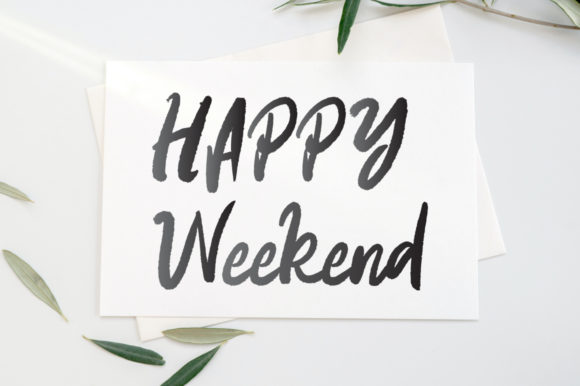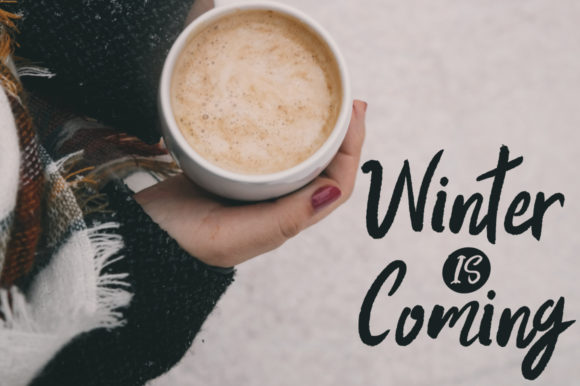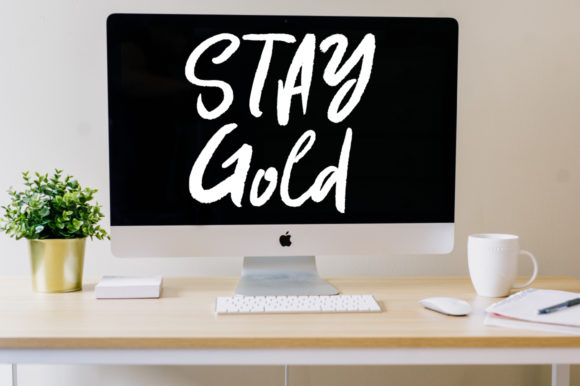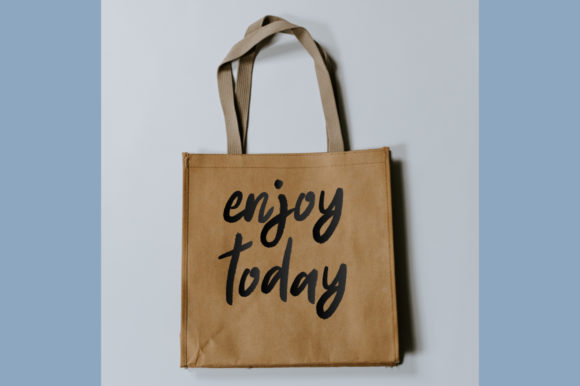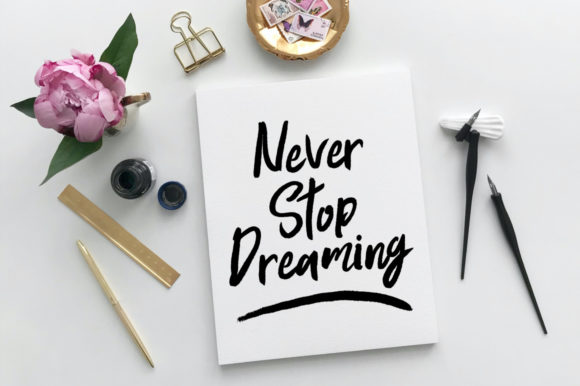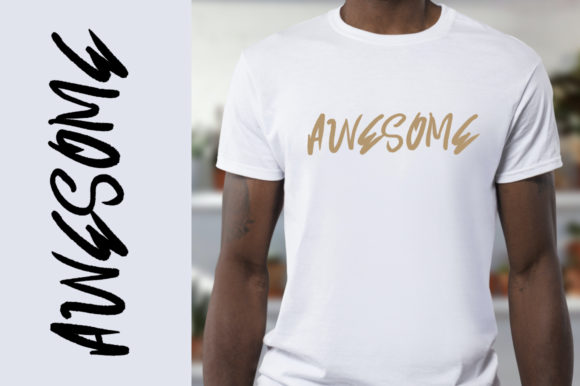
Introducing Big Boss Font: The Ultimate Display Font for Bold Designs
Are you a designer or crafter looking for a font that can make your designs stand out? Look no further than Big Boss Font, a bold and brushed display font that’s perfect for a wide range of applications. From branding and product packaging to invitations, quotes, t-shirts, labels, posters, and logos, Big Boss Font is the ideal choice for anyone who wants to add a touch of personality and style to their designs.
What Makes Big Boss Font So Special?
Big Boss Font is a unique and eye-catching font that’s designed to make a statement. Its bold and brushed texture gives it a distinctive look that’s both modern and edgy. The font is highly versatile, making it suitable for use in a variety of contexts, from digital designs to print materials.
One of the key features of Big Boss Font is its exceptional legibility. Even at large sizes, the font remains clear and easy to read, making it perfect for headlines, titles, and other applications where impact is key. The font is also highly customizable, allowing you to adjust the size, color, and style to suit your specific design needs.
Uses for Big Boss Font
So, what can you use Big Boss Font for? The possibilities are endless! Here are just a few ideas to get you started:
- Branding: Use Big Boss Font to create bold and memorable logos, business cards, and letterheads that showcase your brand’s personality.
- Product Packaging: Add a touch of style and sophistication to your product packaging with Big Boss Font. It’s perfect for labels, tags, and other packaging materials.
- Invitations: Create eye-catching invitations for weddings, parties, and other events with Big Boss Font. Its bold and brushed texture adds a touch of elegance and sophistication.
- Quotes: Use Big Boss Font to create inspiring and motivational quotes that can be used on social media, posters, and other materials.
- T-Shirts: Design bold and stylish t-shirts with Big Boss Font. Its brushed texture gives it a unique and edgy look that’s perfect for casual wear.
- Labels: Use Big Boss Font to create custom labels for products, files, and other materials. Its bold and clear texture makes it easy to read and understand.
- Posters: Create eye-catching posters with Big Boss Font. Its bold and brushed texture makes it perfect for advertising, promotion, and other marketing materials.
- Logos: Use Big Boss Font to create unique and memorable logos that showcase your brand’s personality and style.
Why Choose Big Boss Font?
So, why should you choose Big Boss Font for your design projects? Here are just a few reasons:
- Unique and Eye-Catching: Big Boss Font has a distinctive look that’s both modern and edgy. It adds a touch of personality and style to any design.
- Highly Versatile: Big Boss Font can be used in a wide range of contexts, from digital designs to print materials.
- Exceptional Legibility: The font is highly legible, even at large sizes, making it perfect for headlines, titles, and other applications where impact is key.
- Customizable: Big Boss Font is highly customizable, allowing you to adjust the size, color, and style to suit your specific design needs.
In conclusion, Big Boss Font is a bold and brushed display font that’s perfect for designers and crafters who want to add a touch of personality and style to their designs. Its unique and eye-catching texture, exceptional legibility, and high versatility make it suitable for a wide range of applications, from branding and product packaging to invitations, quotes, t-shirts, labels, posters, and logos. So why not give Big Boss Font a try and see how it can elevate your designs to the next level?